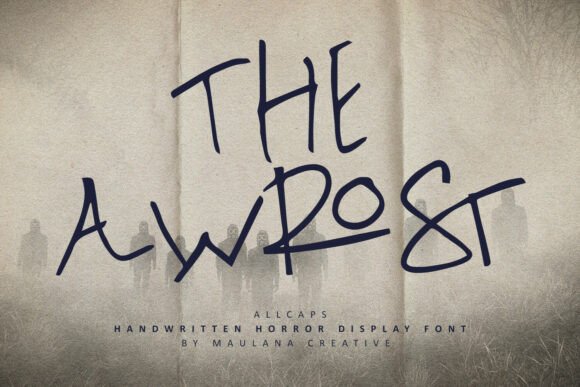
Awrost Font: The Epitome of Suspense and Unease in Typography
In the realm of typography, fonts play a pivotal role in conveying emotions and setting the tone for various creative projects. Among the myriad of fonts available, the Awrost font stands out for its unique ability to evoke a sense of suspense and unease. This chilling, all-caps handwritten font is specifically designed to drip with an aura of panic and fear, making it an ideal choice for projects that require a sense of horror, mystery, or thriller.
The Awrost font is not just a simple collection of letters; it’s an experience encapsulated in a digital form. Its uneven, scratchy strokes seem to mimic the handwriting of someone in a state of distress or panic, as if the words were scrawled on a surface in haste. This distinctive feature makes it a perfect fit for horror posters, mystery covers, indie thrillers, and Halloween visuals, where the font can effectively communicate a sense of dread or urgency.
Key Features of the Awrost Font
- All-caps design: The Awrost font is designed exclusively in all caps, which adds to its commanding and attention-grabbing presence. This all-caps design ensures that any text set in Awrost is instantly noticeable and legible, even from a distance.
- Handwritten with a twist: While it retains the personal touch of handwritten fonts, Awrost’s uneven and scratchy strokes give it a unique twist. This characteristic makes it appear as if written in a moment of panic or fear, adding to its suspenseful aura.
- Perfect for digital and print: The versatility of the Awrost font allows it to be used effectively in both digital and print media. Whether it’s for a horror movie poster, a mystery novel cover, or a Halloween-themed social media post, Awrost can adapt to various design needs.
Ideal Applications for the Awrost Font
The Awrost font’s unique characteristics make it suitable for a variety of applications where a sense of suspense, horror, or mystery is desired. Some of the ideal uses for this font include:
- Horror posters: For movie posters, album covers, or book covers in the horror genre, Awrost can effectively convey the chilling experience that awaits the audience.
- Mystery covers: The font’s suspenseful nature makes it a great choice for mystery novels, thrillers, or detective story covers, enticing readers with a sense of enigma.
- Inde thrillers: Independent thriller movies or series can benefit from Awrost’s gripping and intense vibe, setting the tone for a thrilling ride.
- Halloween visuals: For Halloween-themed designs, such as party invitations, social media posts, or event flyers, Awrost can add a spooky and festive touch.
Design Tips for Using the Awrost Font
To maximize the impact of the Awrost font in your designs, consider the following tips:
- Contrast is key: Pair Awrost with simpler fonts to create contrast and make your design more readable. A clean sans-serif font for body text can provide a good balance.
- Color matters: Stick to dark, muted colors that complement the suspenseful nature of the font. Black, dark grays, or deep purples can enhance the overall effect.
- Whitespace utilization: Don’t be afraid to use whitespace around your text. This can help to emphasize the Awrost font’s impact and make your design more visually appealing.
- Experiment with sizes: Play with different font sizes to create visual hierarchy and add drama to your design. Larger text can be used for titles, while smaller sizes can be used for additional information.
The Awrost font is a powerful tool for designers looking to infuse their projects with a sense of suspense, horror, or mystery. Its unique, handwritten style with uneven strokes captures fear in every letter, making it perfect for a variety of applications from horror posters to Halloween visuals. By understanding its characteristics and experimenting with design tips, you can unlock the full potential of the Awrost font and create compelling visuals that leave a lasting impression on your audience.